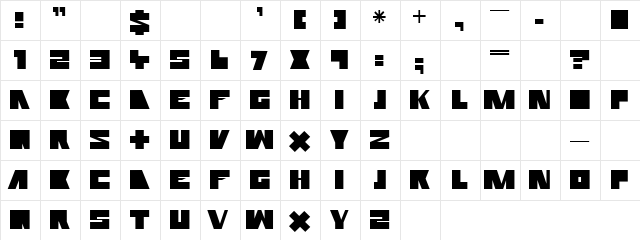
Rammstein Remix Regular
Design Context for Rammstein Remix Typeface
Rammstein Remix is a composed and adaptable typeface that performs quietly and consistently across a wide range of design contexts.